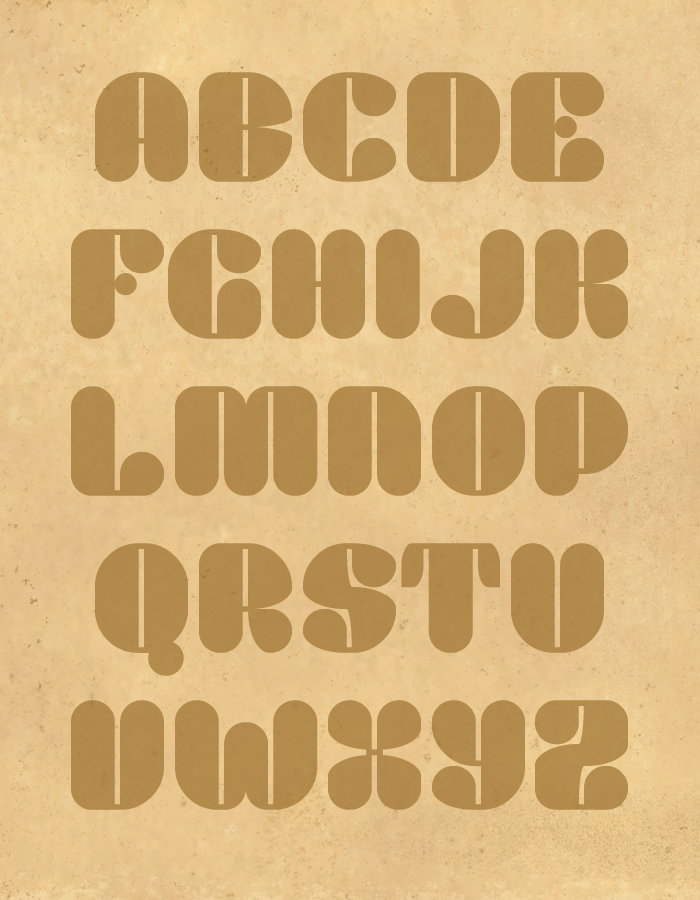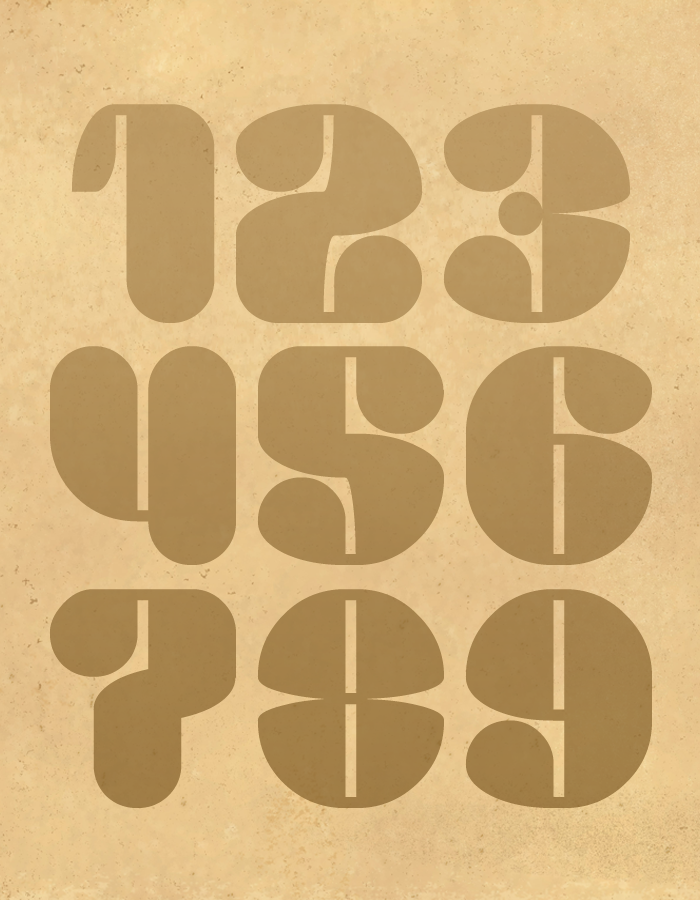
Spot the composites...
Nice and curvy letters. Cake Sale ticks all the boxes. 10/10
This looks like wholesome comfort food ;) with its beautifully filling curves. Spot the composites? I'd be here for hours! 10/10
To make me blindly loving it: is there a chance of French and German (the ß would be nice but not essential in this design) diacritics?
Definite four-quality!